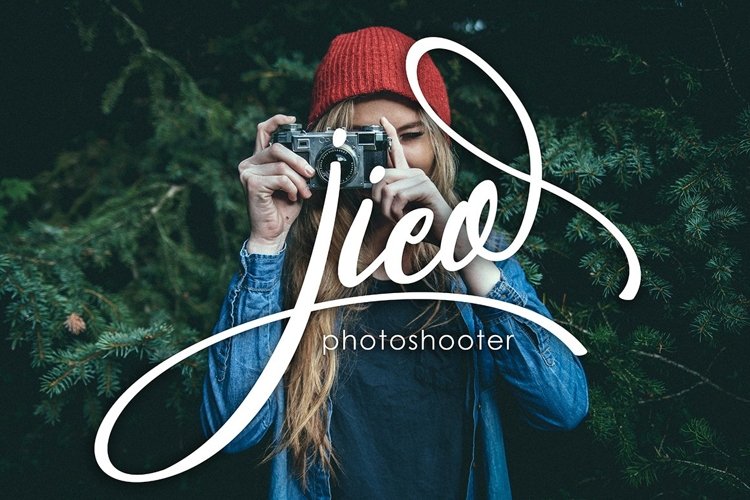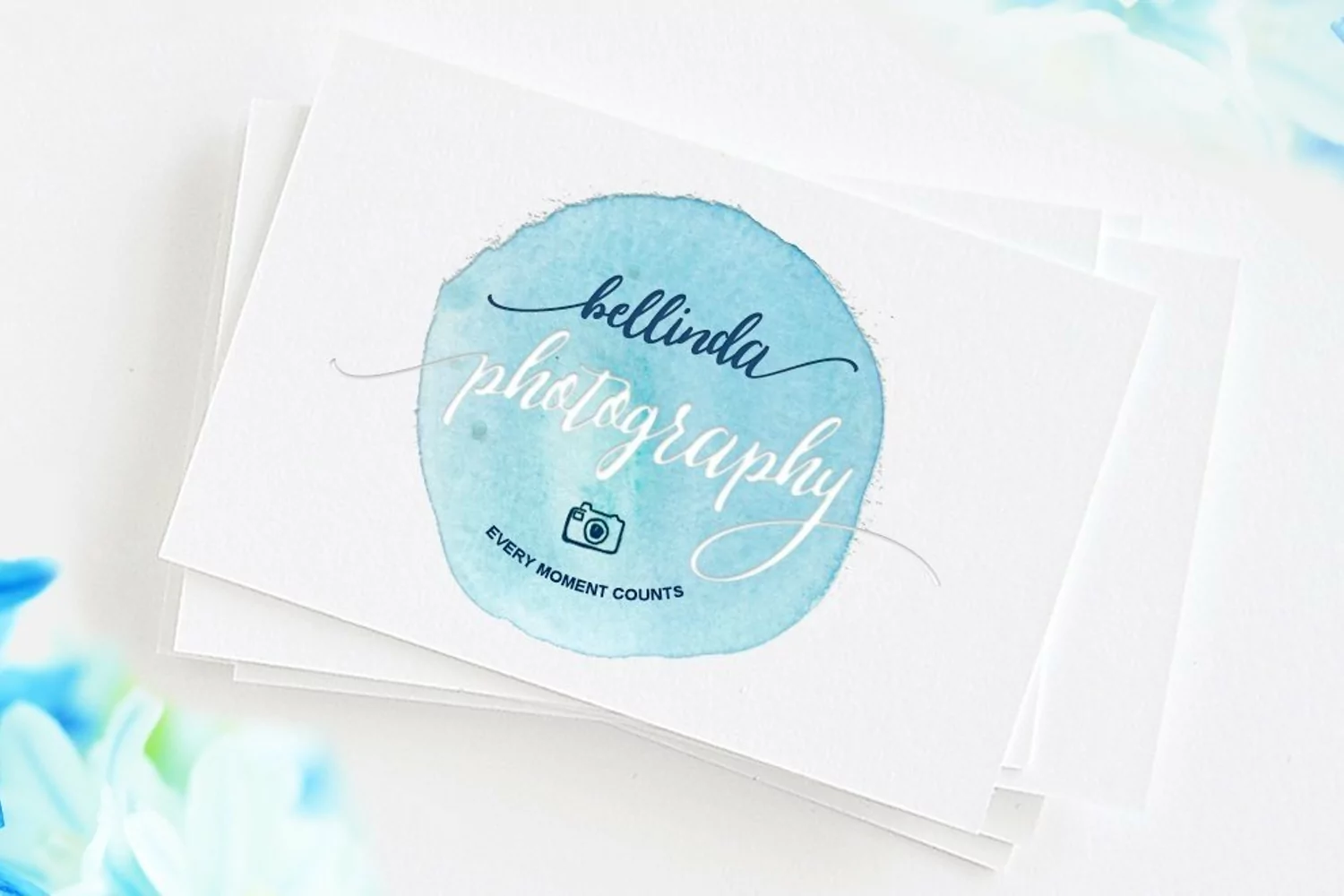
Asmila Script is a font that has a modern rhythmic base is varied, delicious views and elegant touch.
Can be used for various purposes. such as title, signature, logo, wedding invitations, t-shirts, letterhead, signage, labels, newsletters, posters, badges etc.
Asmila Script features 400+ glyphs to 140 characters alternatives. including initial and terminal letters, alternates, ligatures, and multiple language support.Files included: